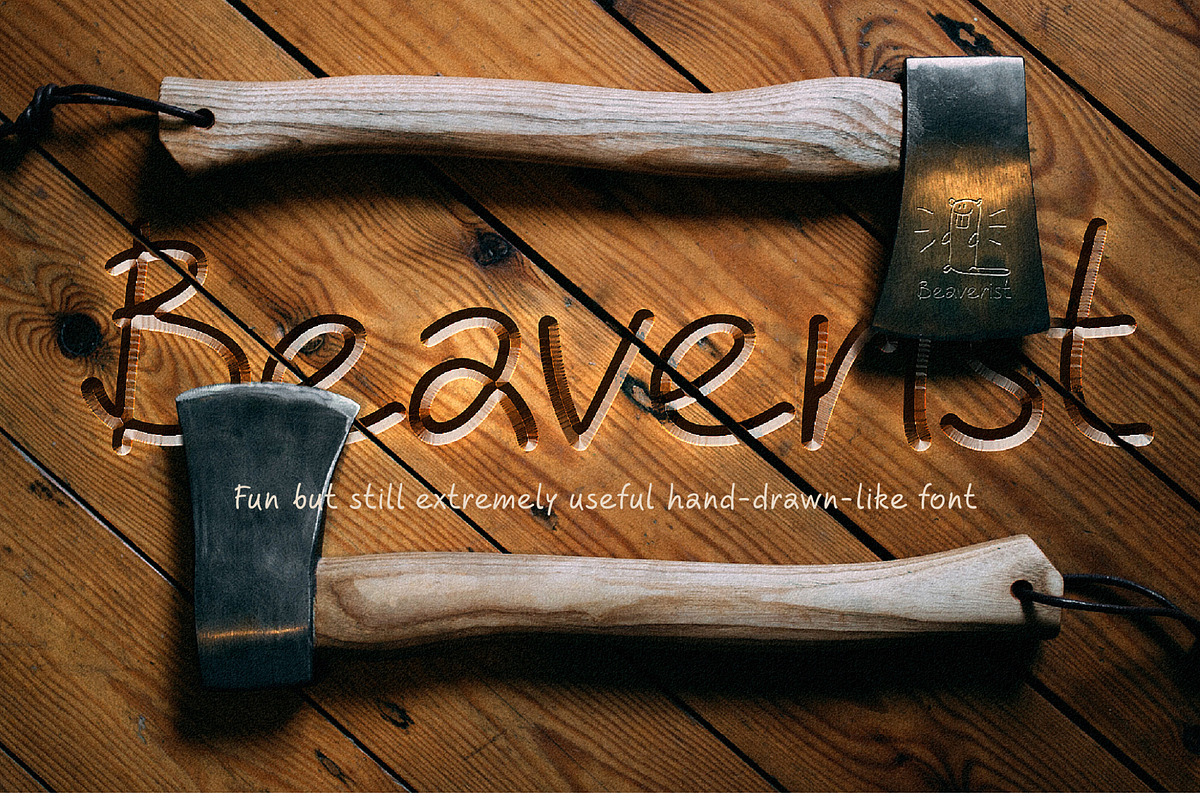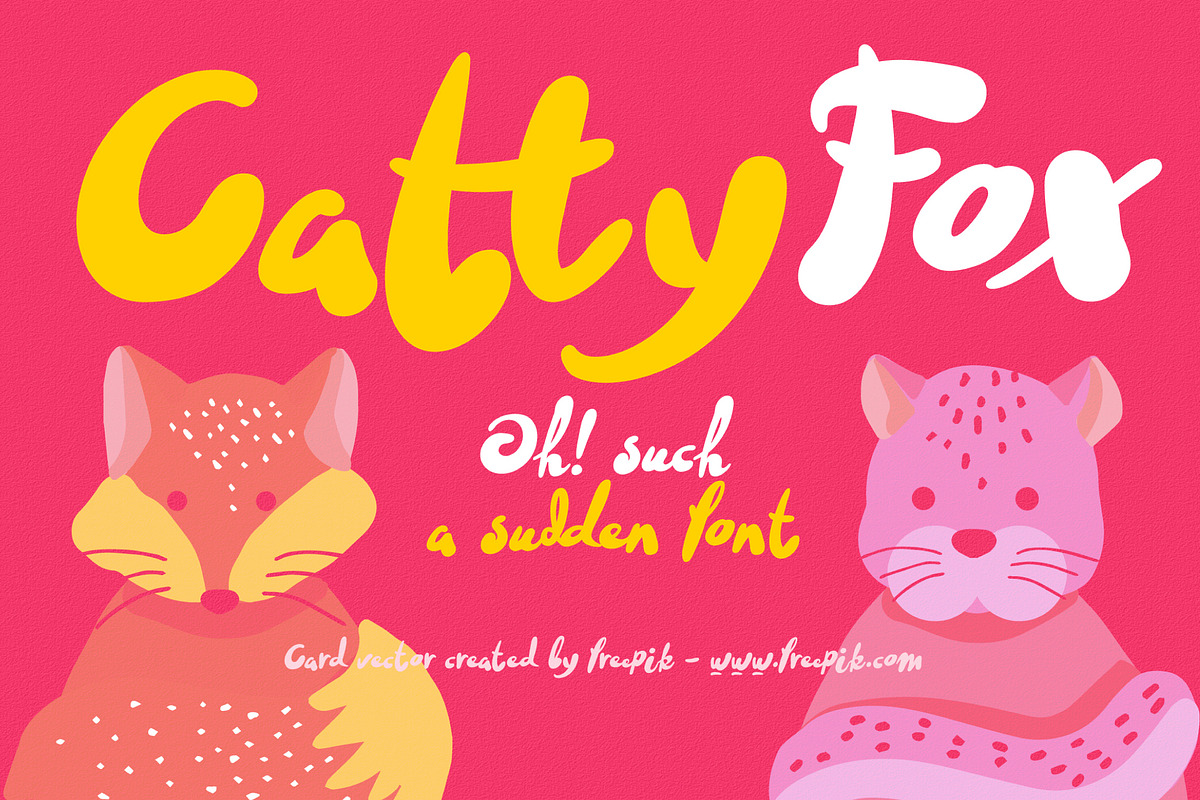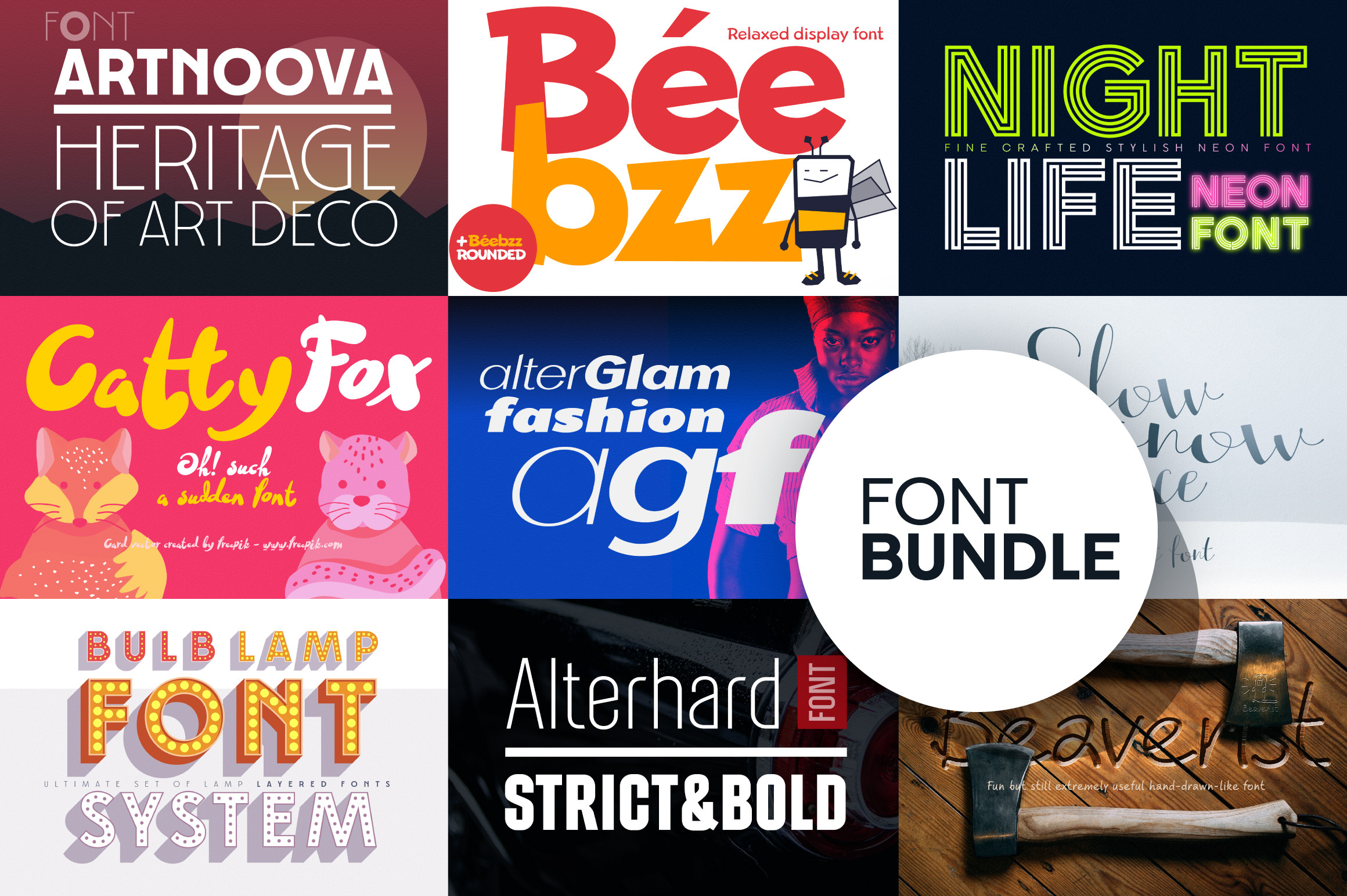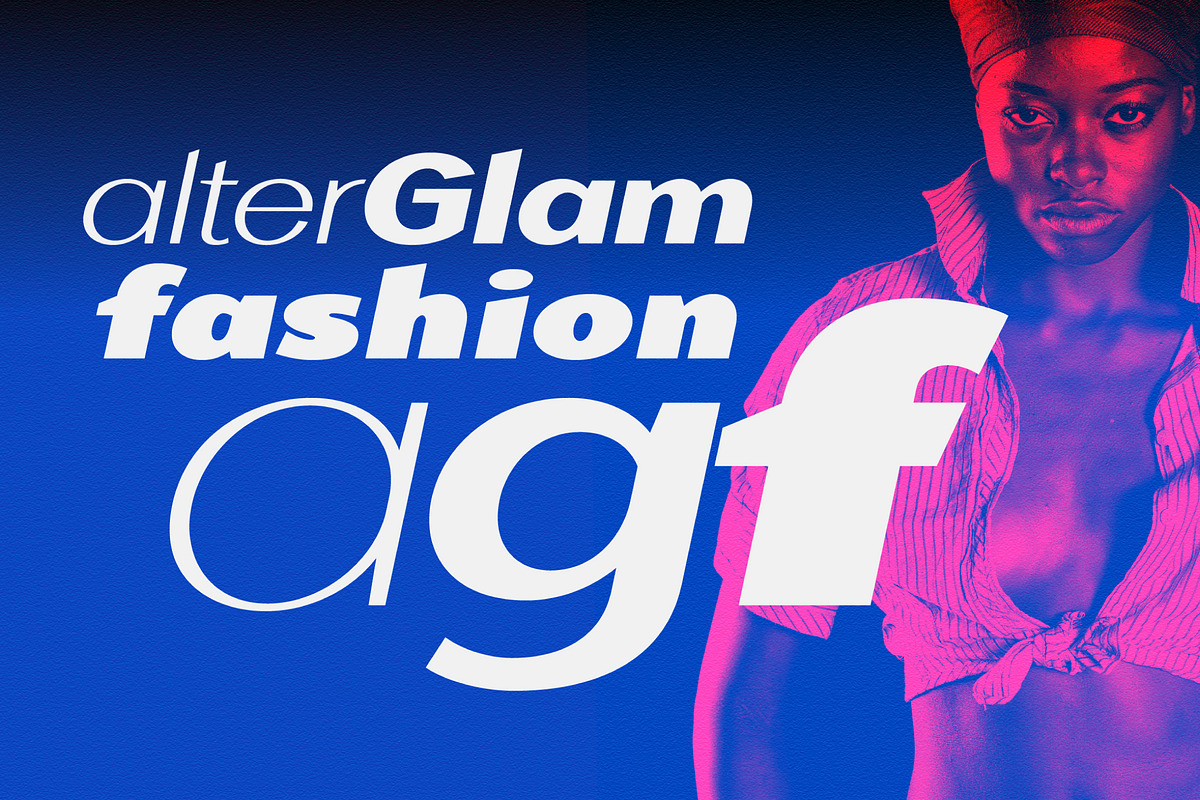
Display Font Bundle by Popsktaft
We are pleased to present to you the bundle of the best fonts made by us for more then 5 years. Most of the font families have multiple sizes.
This package contains 9 font families:
AlterGlam Elegant Extended Font — https://creativemarket.com/popskraft/3441492-AlterGlam-Elegant-Extended-Font
Beebzz. Child kid fun Font — https://creativemarket.com/popskraft/875634-Beebzz.-Child-kid-fun-font.-Display.
Alterhard Condensed Strict Font — https://creativemarket.com/popskraft/2913461-Alterhard-Condensed-Strict-Font
Artnoova Font. Heritage of Art Deco — https://creativemarket.com/popskraft/1265340-Artnoova-font.-Heritage-of-Art-Deco
Nightlife Decorative Neon Font — https://creativemarket.com/popskraft/1647117-Nightlife-Decorative-Neon-Font
Layered font set 3D Bulb lamp — https://creativemarket.com/popskraft/1811838-Layered-font-set-3D-Bulb-lamp
Alpuzato fresh & superfunny font — https://creativemarket.com/popskraft/2039440-Alpuzato-fresh-superfunny-font
Hand drawn script font. Beaverist — https://creativemarket.com/popskraft/917999-Hand-drawn-script-font.-Beaverist
Contrast hand font Alterscript — https://creativemarket.com/popskraft/2001970-Contrast-hand-font-Alterscript